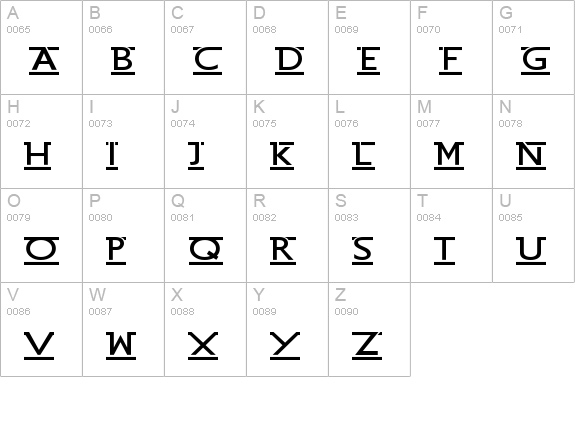
The Thx Logo font is a sleek and modern typeface that exudes elegance and sophistication. With its clean lines and refined curves, this font is perfect for creating stunning logos and branding materials that leave a lasting impression. The Thx Logo font is versatile and easily adaptable to various design projects, making it a must-have in any designer's toolkit.